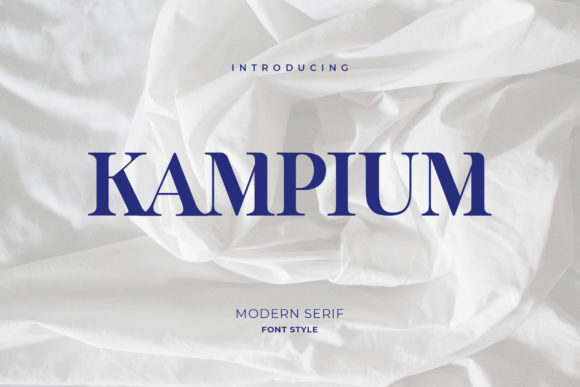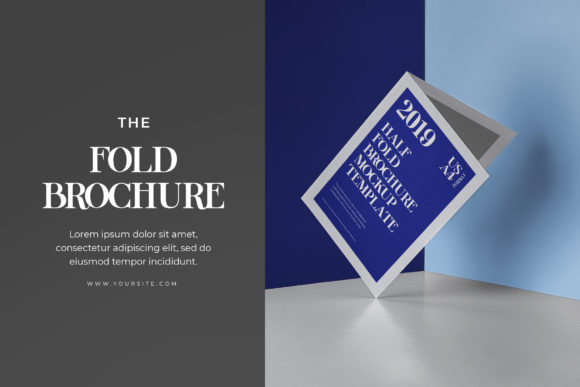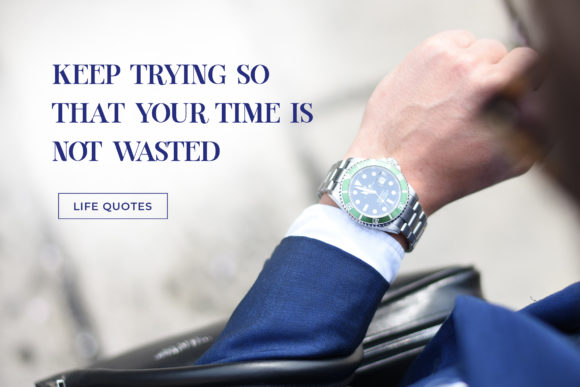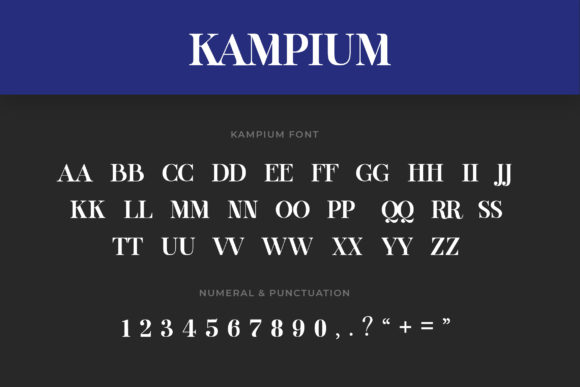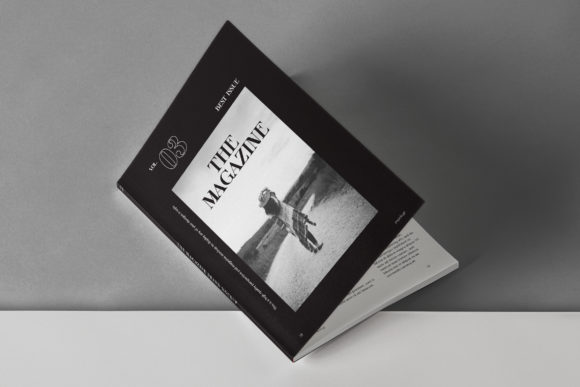
Kampium: A Daring and Modern Slab Serif Font
Kampium is a distinctive slab serif font that combines boldness with a modern aesthetic. This typeface offers designers a powerful tool for creating impactful typography that makes creations stand out.
Key Features of Kampium
- Daring Design: Features a bold and adventurous appearance that commands attention
- Modern Aesthetic: Incorporates contemporary design elements for a fresh look
- Thick Letters: Offers substantial, imposing letterforms for maximum visual impact
- Slab Serif Structure: Maintains the characteristic thick, rectangular serifs typical of slab serif fonts
- Stand-Out Quality: Designed to make creations pop and grab attention
Ideal Uses for Kampium
Kampium’s unique characteristics make it particularly well-suited for:
- Bold headlines and titles
- Impactful logo designs
- Eye-catching poster and advertisement layouts
- Modern branding projects
- Striking digital content and social media graphics
When incorporating Kampium into your designs, consider the following tips:
- Use for headlines or short blocks of text to maximize its bold impact
- Experiment with different sizes to create hierarchy while maintaining readability
- Pair with simpler, lighter weight fonts for body text to create contrast
- Consider using it in projects where you want to convey strength and modernity
Kampium is an excellent choice for designers looking to add a daring and modern slab serif to their typographic toolkit. Its thick letterforms and imposing presence make it stand out in the world of typography. Whether you’re working on logo designs, creating layouts for advertising, or developing branding for bold and contemporary projects, Kampium offers the perfect blend of daring design and modern aesthetics.
Add Kampium to your designs and watch how it brings a bold and modern edge to your creations. From striking headlines to impactful branding elements, this font provides the tools to create memorable typography that stands out with its unique blend of thickness and contemporary style.